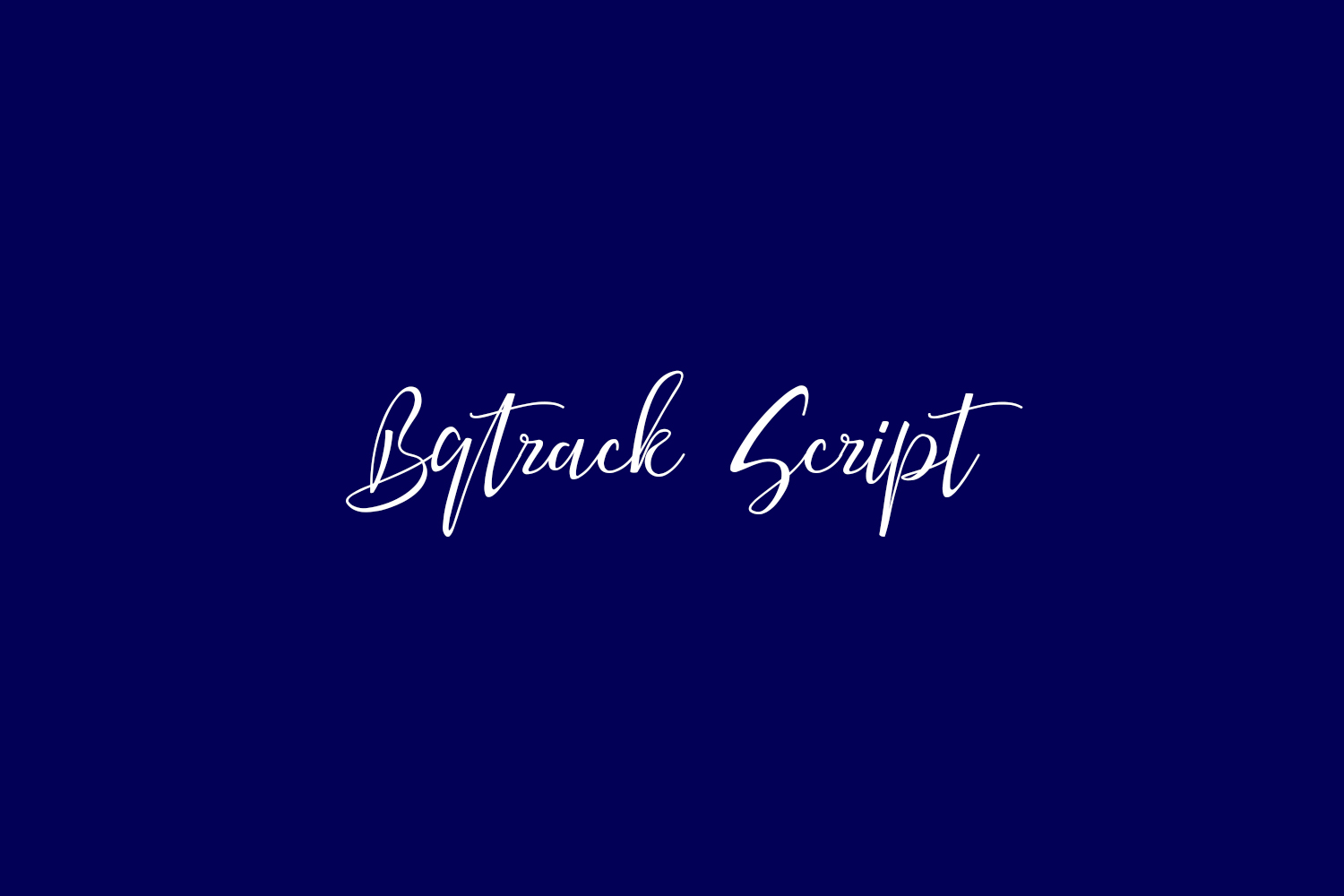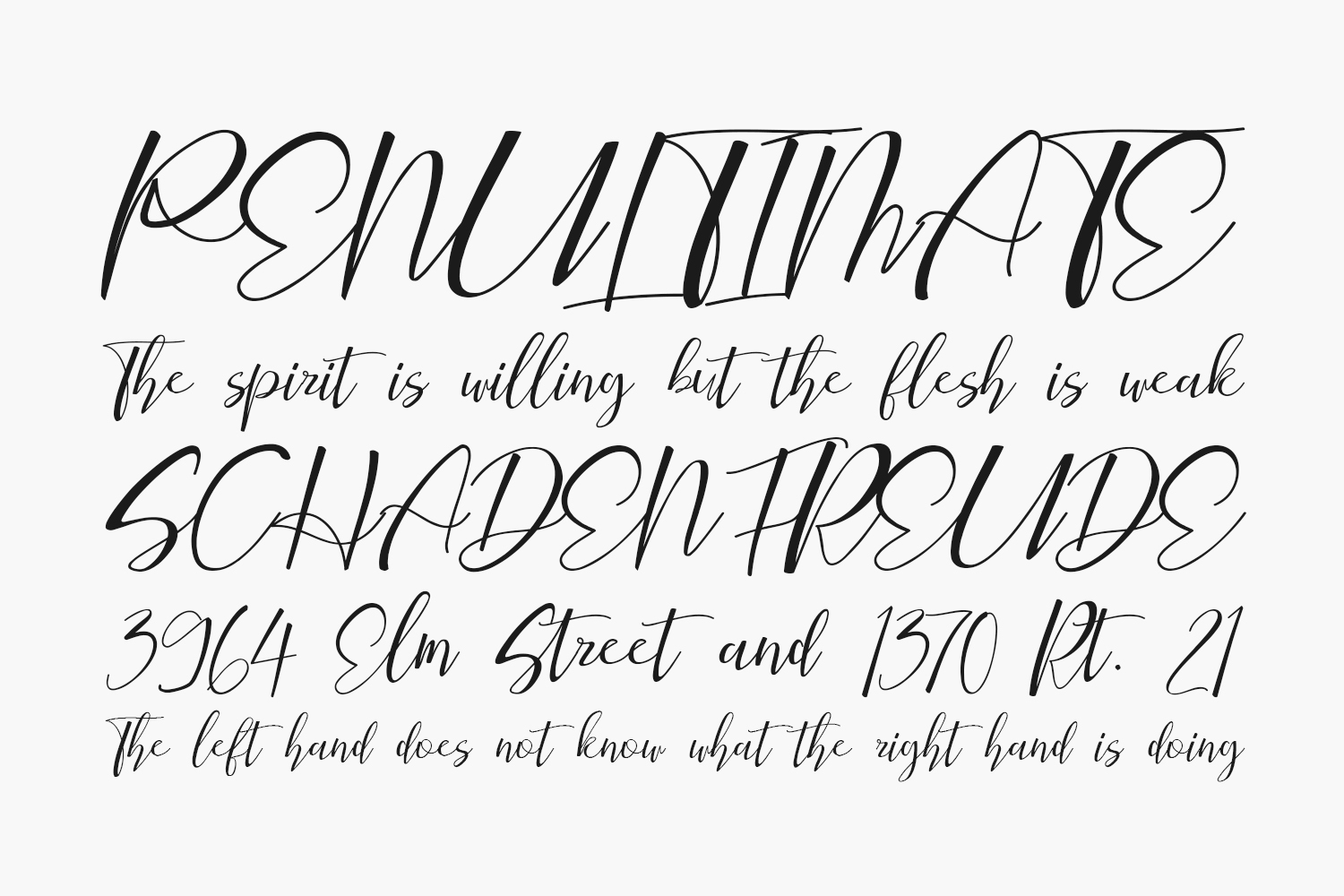
Bqtrack Script Free Font is a calligraphy script font with a hand-lettering style. This font looks cool in any design and very recommended for logo, poster, branding, quote, or anything else that needs a touch of elegance. Please purchase the full version for commercial use.